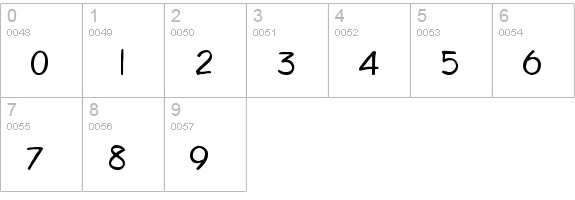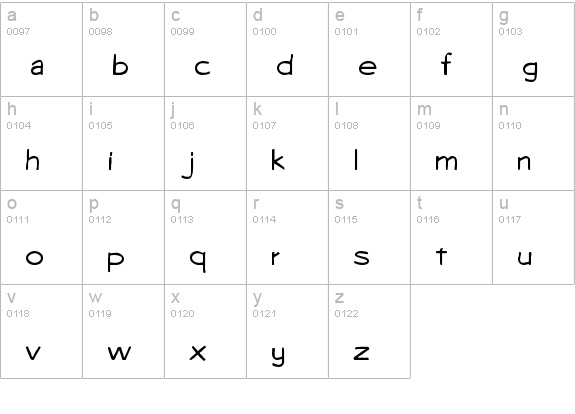
QTSanDiego Regular Font Details
QTSanDiego Regular is the standard, neutral variant in the QTSanDiego typeface family \xE2\x80\x94 well suited to general body text, paragraphs, and standard typographic work.
QTSanDiego Regular font is a visually appealing and versatile typeface that effortlessly combines modernity with a touch of elegance. Its clean lines and well-balanced proportions make it suitable for a wide range of design projects, from branding and advertising to web design and print materials. This font exudes a sense of professionalism and sophistication, making it an excellent choice for both personal and commercial use. Whether you're creating a logo, designing a website, or crafting a poster, QTSanDiego Regular will add a touch of class to your project. What's even better is that QTSanDiego Regular font is available for free download at FontsMarket.com. This means that you can effortlessly enhance your designs with this stunning typeface without breaking the bank. By offering this font for free, FontsMarket.com allows designers of all backgrounds and budgets to access high-quality typography. With its wide range of characters, including uppercase and lowercase letters, numbers, punctuation marks, and special symbols, QTSanDiego Regular font provides you with all the tools you need to bring your creative visions to life. Its smooth and legible letterforms ensure optimal readability across various mediums, ensuring that your message is effectively communicated to your audience. Whether you're a professional designer or an aspiring enthusiast, QTSanDiego Regular font is a must-have in your font library. Its timeless design and versatility make it suitable for a multitude of projects, while its availability as a free download at FontsMarket.com makes it accessible to everyone. Elevate your designs and make a lasting impression with QTSanDiego Regular font.